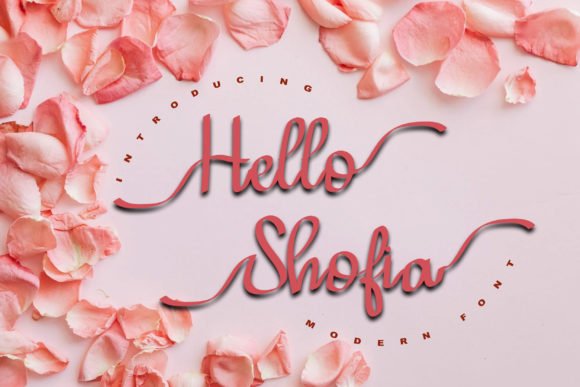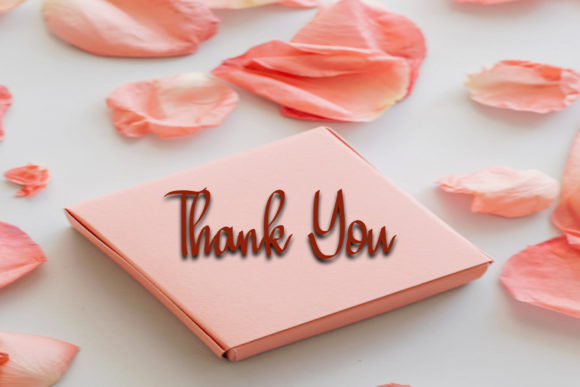
Discover the Magic of Hello Shofia Font
As a designer, have you ever been browsing through a wedding invitation or a beautifully crafted social media post and thought to yourself, “Wow, I wish I could create something like that”? You’re not alone. We’ve all been there, searching for the perfect font to match our creative vision. And then, it happens – you stumble upon the Hello Shofia Font, a thin lettered and graceful script font that will make your designs stand out.
This enchanting font is perfect for creating gorgeous wedding invitations, beautiful stationery art, and eye-catching social media posts. With its ravishing style, the Hello Shofia Font is an absolute must-have for designers looking to add a touch of elegance to their work. Whether you’re a seasoned pro or just starting out, this versatile font is sure to become your new go-to.
Hello Shofia Font Key Features
- Font Family: Hello Shofia Font is a unique, handwritten font family designed to add a personal touch to various designs.
- Font Size: The font family comes in multiple weights, ranging from 200 to 900, offering a wide range of font sizes to suit various design needs.
- Resolution: Optimized for high-resolution displays, making it perfect for use in digital designs, such as website headers, social media graphics, and more.
- Unique Characteristics: The font features a mix of elegant and playful elements, with intricate details and flourishes, making it ideal for creative and artistic designs.
Hello Shofia Font Review
Overall, I was excited to try the Hello Shofia Font. Here’s my honest review.
The Hello Shofia Font has a unique and elegant feel to it, making it perfect for creative projects. The font is highly customizable, allowing designers to adjust the weight, width, and even the style to suit their needs.
- Highly customizable with various weight and width options
- Supports multiple languages, making it a great option for global projects
- Works well for both print and digital designs
While the Hello Shofia Font is a great addition to any designer’s toolkit, it does have some limitations. The font can be a bit tricky to read at smaller font sizes, and some users may find the style a bit too ornate for certain projects.
- Can be difficult to read at smaller font sizes
- May not be suitable for projects requiring a clean and minimalist aesthetic
- No OpenType features or ligatures available
Overall, I would say that the Hello Shofia Font is a solid choice for designers looking for a unique and elegant font option. While it may have some limitations, its high level of customization and support for multiple languages make it a great addition to any designer’s toolkit.
Getting the Most Out of Hello Shofia Font
For best results, pair the Hello Shofia font with a clean and simple design aesthetic. Use it for headings and titles to add a touch of elegance and sophistication.
Alternatives to Hello Shofia Font for Designers
The Great Vibes Font is a modern, elegant script font that is perfect for creating a sophisticated and stylish look. It is ideal for use in branding, invitations, and other creative projects where a touch of elegance is required.
Compared to Hello Shofia Font, Great Vibes Font has a more refined and polished appearance, making it a great choice for high-end designs. However, it lacks the playful and casual feel of Hello Shofia Font, making it less suitable for casual or informal projects.
The Carolyna Pro Font is a beautiful, modern script font that is designed for use in a variety of applications, including branding, advertising, and editorial design. It features a unique, flowing style that is perfect for creating a sense of sophistication and elegance.
Compared to Hello Shofia Font, Carolyna Pro Font has a more refined and polished appearance, making it a great choice for high-end designs. However, it lacks the playful and casual feel of Hello Shofia Font, making it less suitable for casual or informal projects.